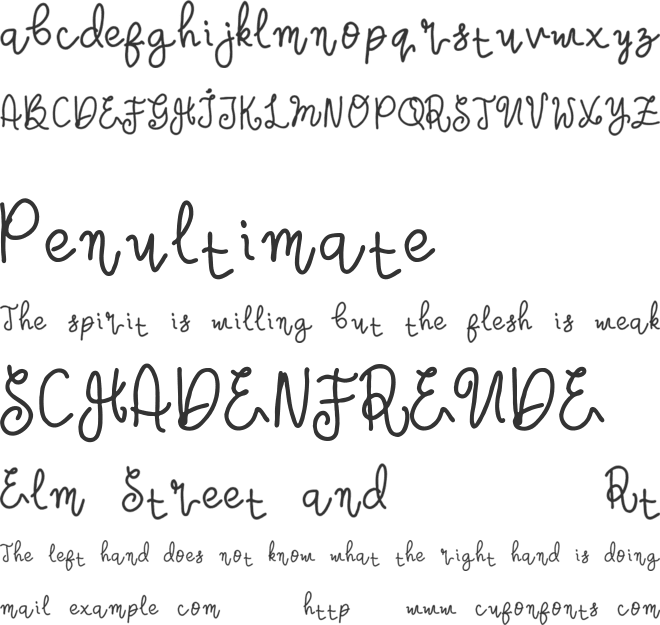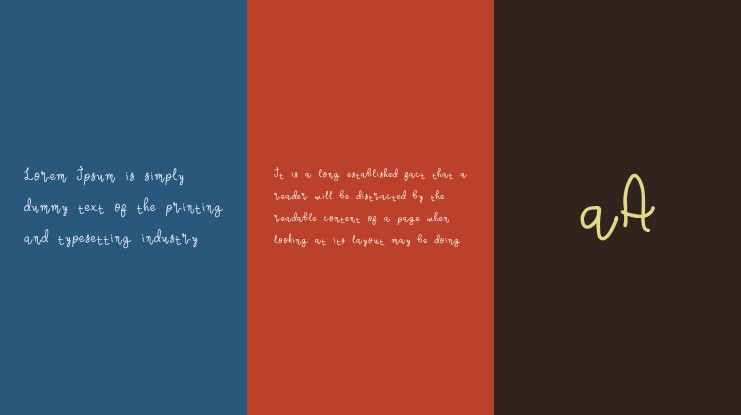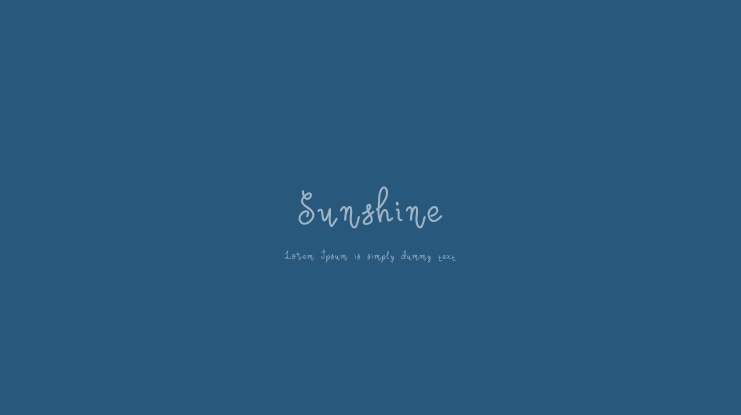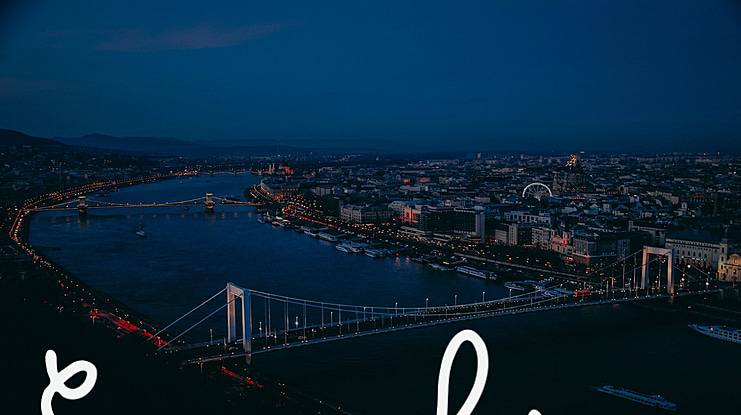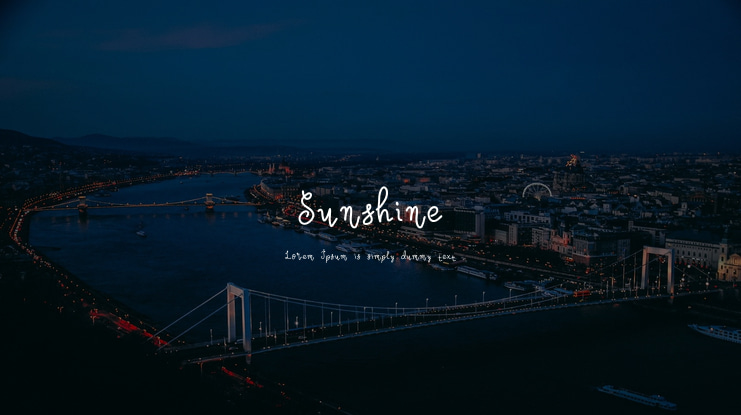
Sunshine Font
Sunshine is a simple and neat lettered handwritten font. Add this font to your creative ideas and notice how it will make them stand out!